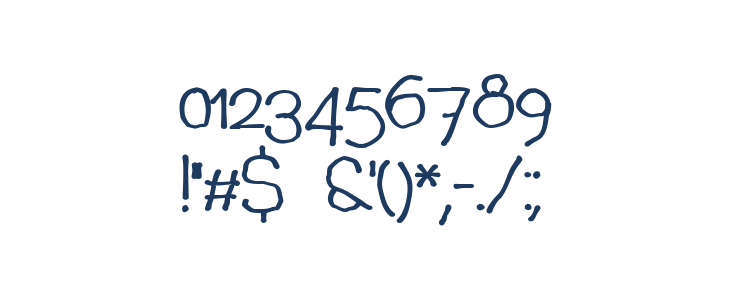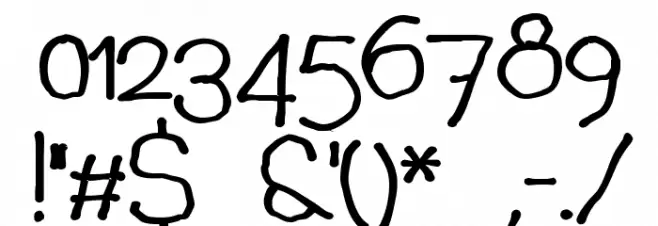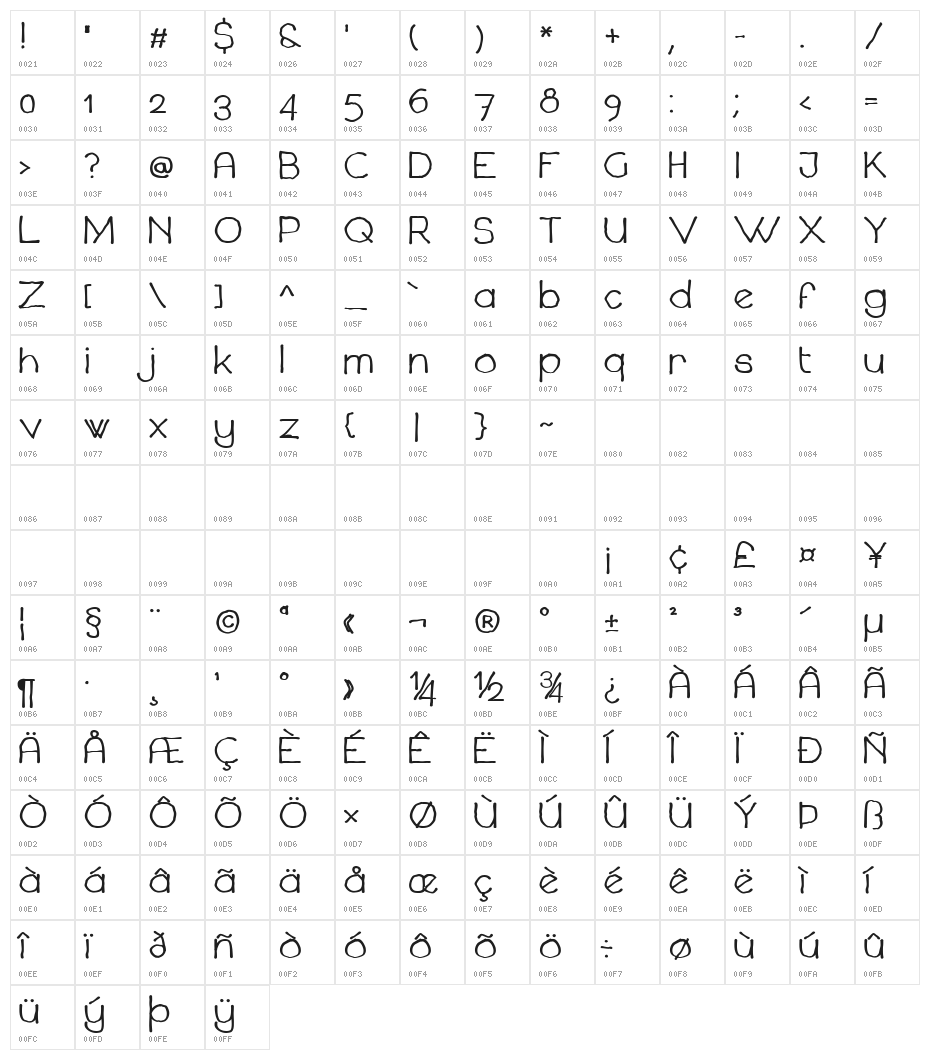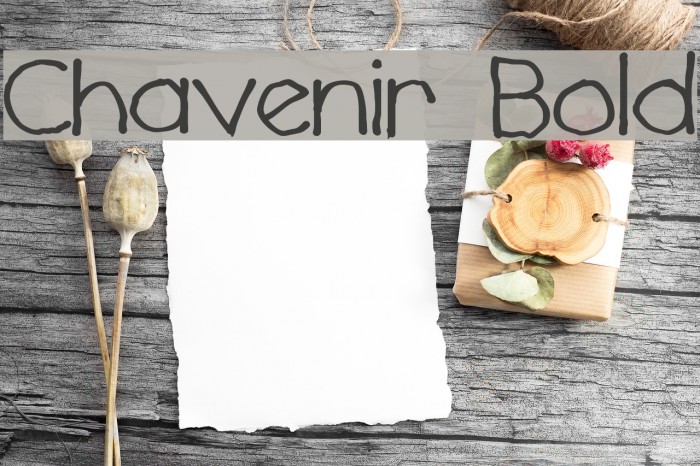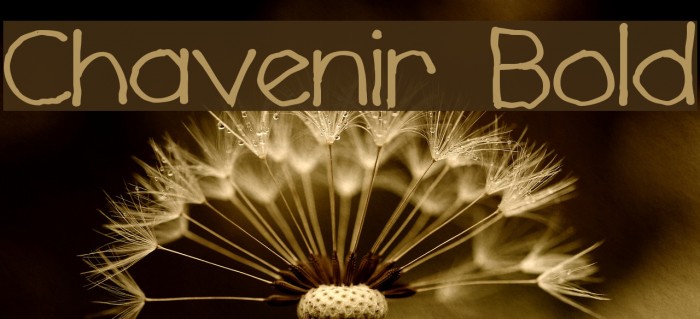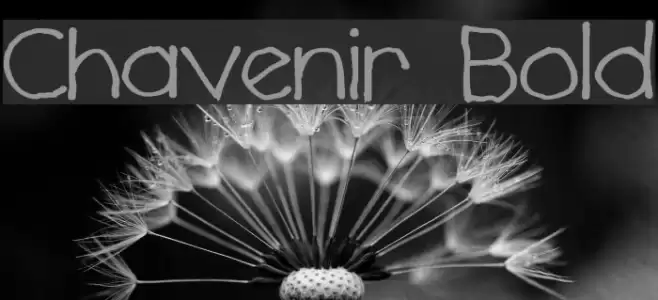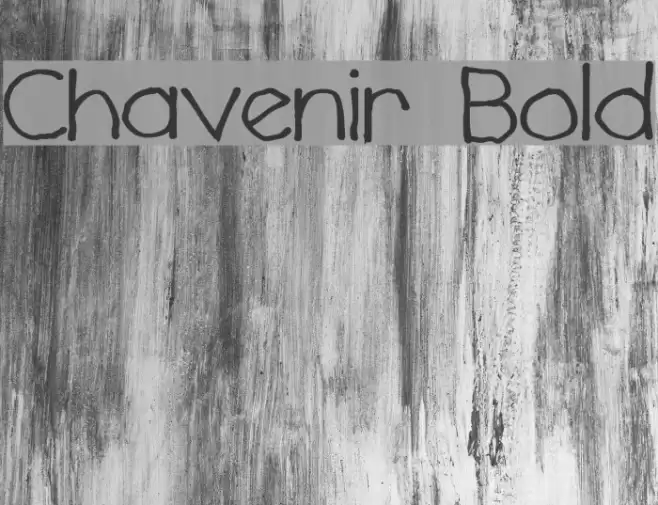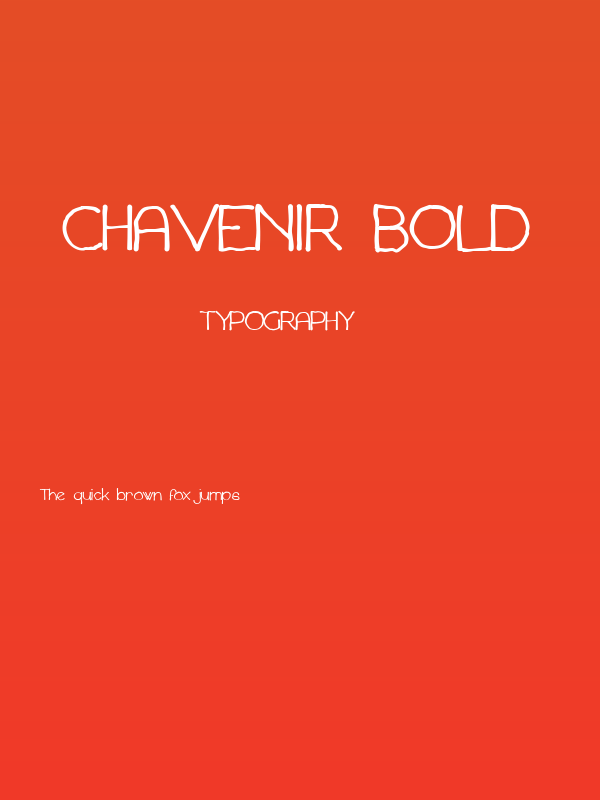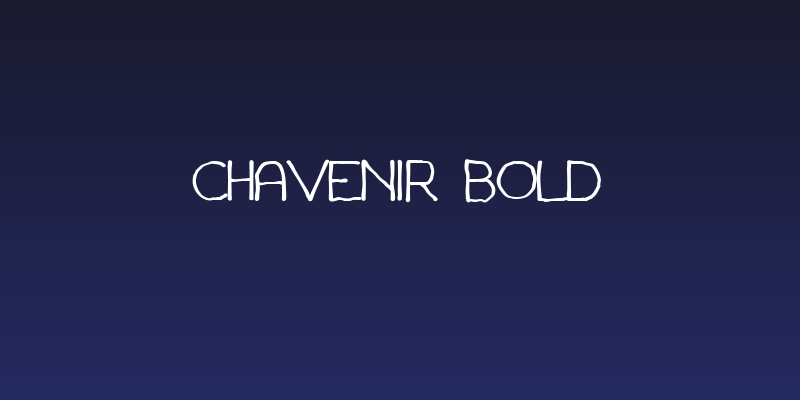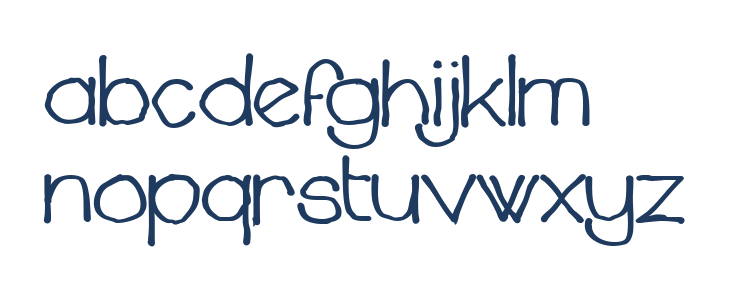
Chavenir Bold Font
Chavenir Bold Description
This font features a playful and informal style with rounded edges and a hand-drawn appearance. The characters are bold and have a consistent stroke width, giving them a uniform look. The uppercase and lowercase letters maintain a cohesive design, with a slightly whimsical touch that adds personality. The numbers and special characters follow the same design principles, ensuring a harmonious overall appearance. This font is ideal for projects that require a friendly and approachable aesthetic.
Overall StylePlayful
Proposed ProjectsGreat for children's books, casual invitations, playful branding, and creative posters.